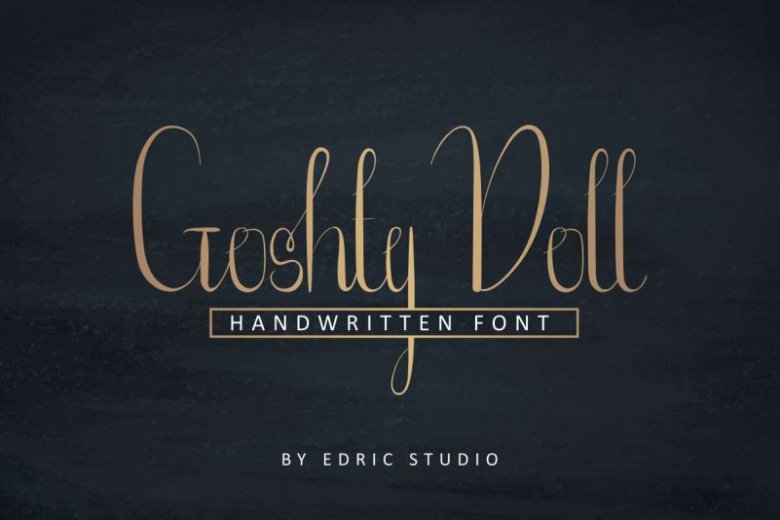
Goshty Doll Calligraphy Font
Goshty Doll is a handwritten script font. It has an authentic modern calligraphy look making it perfect for branding and digital designs. Use this font for logos, social media, websites, blogs, instagram, business cards, branding, and more!